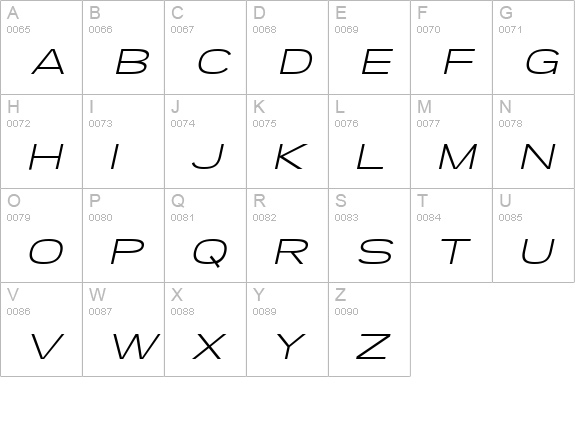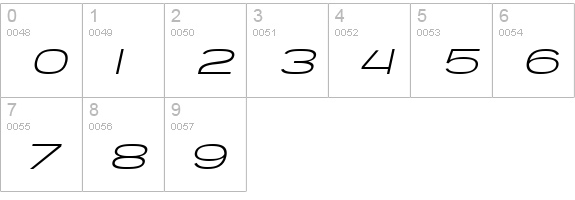
SF Grandezza Light Oblique Font Details
SF Grandezza Light Oblique is a refined, elegant, italic variant in the SF typeface family \xE2\x80\x94 well suited to elegant body text, refined sub-headings, and luxury branding.
SF Grandezza Light Oblique is a stunning font that effortlessly combines elegance and modernity. Its sleek and slender letterforms exude a sense of sophistication, making it the perfect choice for projects that require a touch of refinement. This font boasts a unique oblique angle, adding a dynamic and stylish flair to any design. With its clean and legible characters, SF Grandezza Light Oblique is incredibly versatile and can be used for a wide range of projects, from editorial layouts to branding materials. Its light weight gives it a delicate and airy quality, while the sloping italic design adds a subtle sense of movement and intrigue. What makes SF Grandezza Light Oblique even more enticing is that it is available for free download at FontsMarket.com. This means that designers, creatives, and typography enthusiasts can easily access this exceptional font without any cost. Whether you need to elevate a professional presentation, create eye-catching advertisements, or enhance the visual appeal of your website, SF Grandezza Light Oblique is the perfect choice. So, why settle for ordinary fonts when you can have SF Grandezza Light Oblique? With its remarkable blend of sophistication, modernity, and ease of availability, this font is sure to elevate your designs to new heights. Download it for free at FontsMarket.com and let your creativity shine.